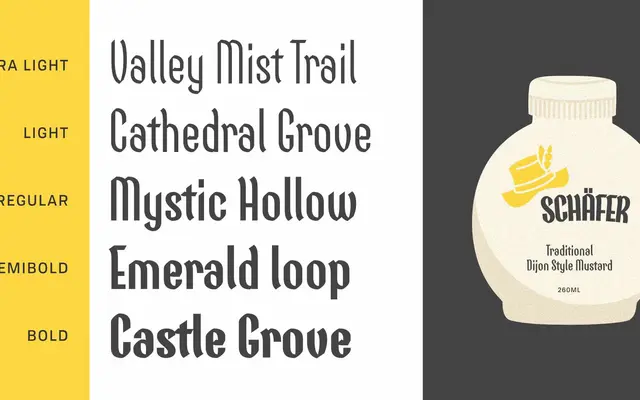
Amberwood
A tall, slender display typeface by Alanna Munro that merges sans-serif construction with blackletter references, suited to fantasy, packaging and editorial headlines.
Released in 2023 and updated to version 1.2 in 2025, Amberwood combines the upright structure of a sans-serif with blackletter-derived curves, giving letterforms an elongated, tree-like vertical rhythm. Five static weights from Extra Light to Bold are available alongside a variable font with a continuous weight axis, and the family includes ligatures and access-all-alternates features. The character set covers Latin Extended, making it practical across a range of European languages despite its decorative intent.
Amberwood blends sans-serif construction with blackletter letterform references, producing a tall, slender display typeface. Its vertical stress, dramatic cap-height, and stylistic alternates place it firmly in the display category with a blackletter-influenced character.